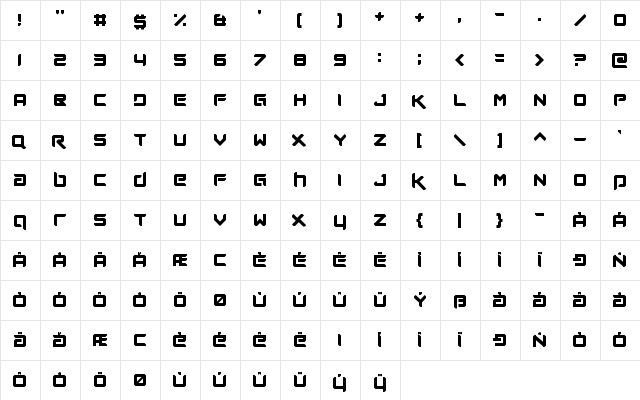
Future Now Regular
| Designer | Andrew McCluskey |
Design Context for Future Now Typeface
Future Now channels digital-age aesthetics through its sharp, structured letterforms — ideal for brands that want to signal innovation.
Pro Tip: Use Future Now in combination with a neutral sans for body text. Let it define the brand voice in headlines while keeping reading comfortable elsewhere.